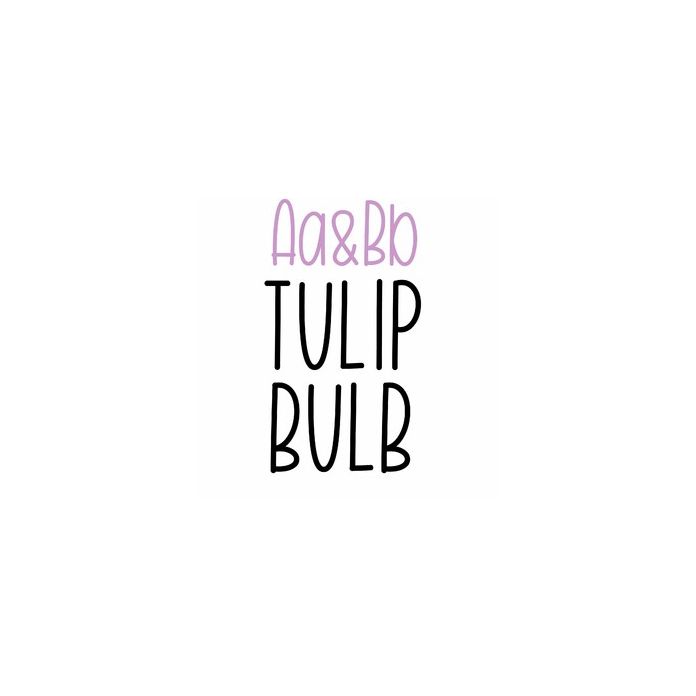
Cute thick handwritten marker font for planners, valentines, birthday cards, monograms, labels, and personalization projects. Includes alphabet, numbers, and punctuation.